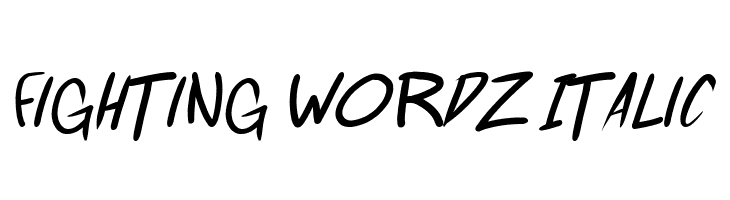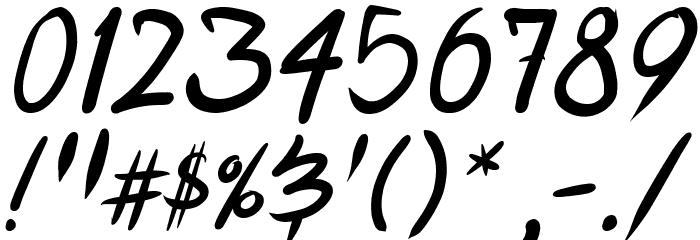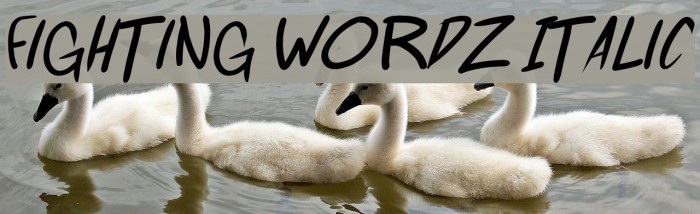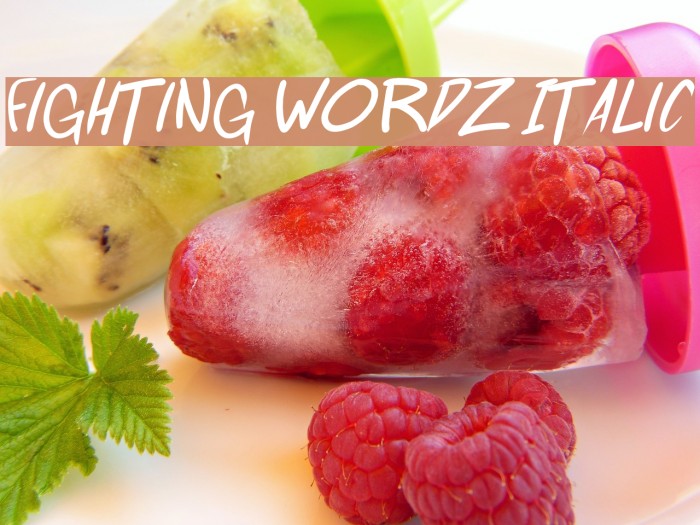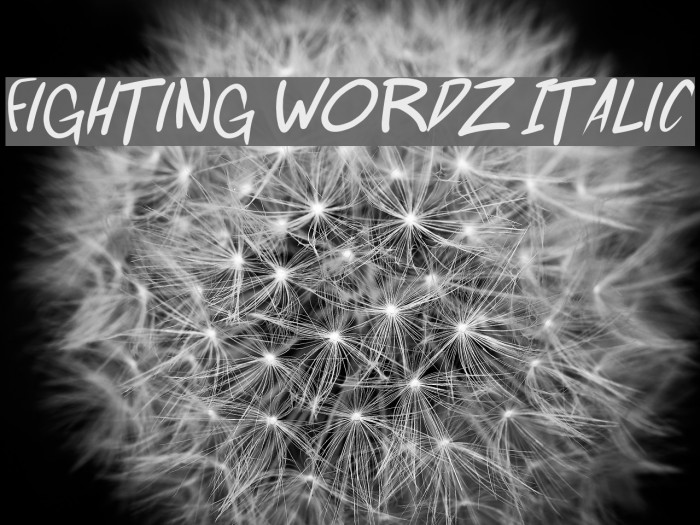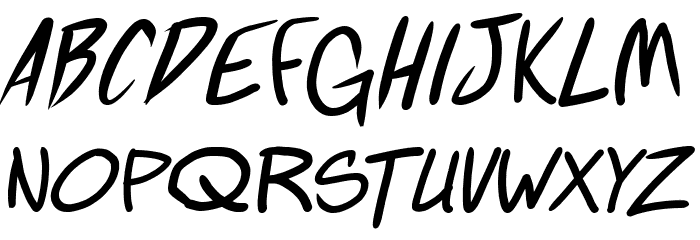
Fighting wordz Italic Font
This font features a bold, dynamic script style with a strong italic slant, giving it a sense of movement and energy. The characters are hand-drawn with a brush-like texture, creating a casual yet assertive appearance. The uppercase and lowercase letters maintain a consistent flow, while the numbers and special characters complement the overall design. The strokes are thick and consistent, contributing to its bold presence. This font is ideal for projects that require a lively and impactful visual statement.
A bold, italic script font with dynamic, brush-like strokes.
• Proposed Projects: Ideal for branding, posters, sports team logos, and dynamic headlines.
• Category: Script
• Overall Style: Modern
• Use Case: Logos, Headlines, Posters